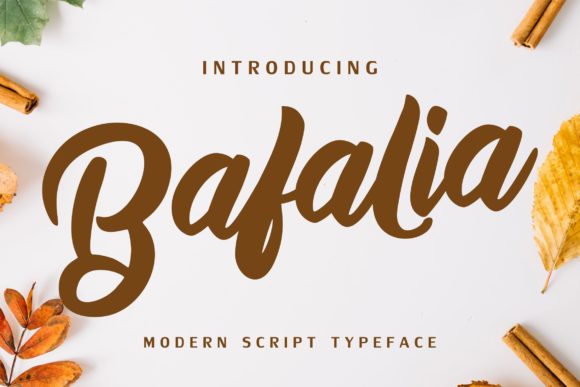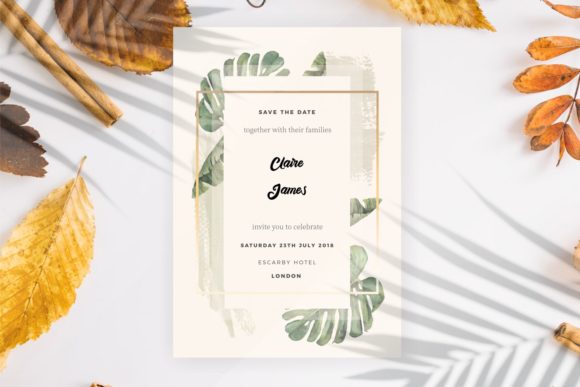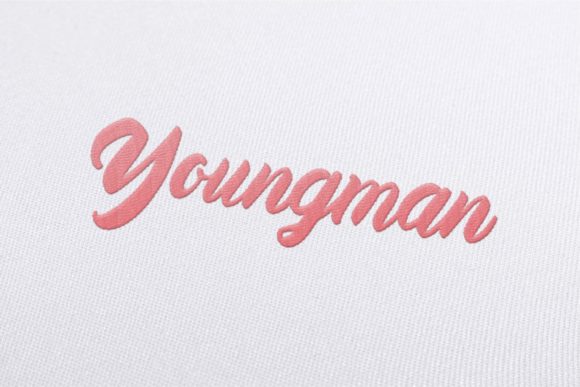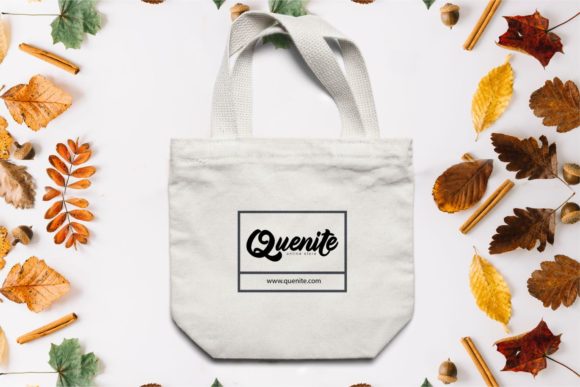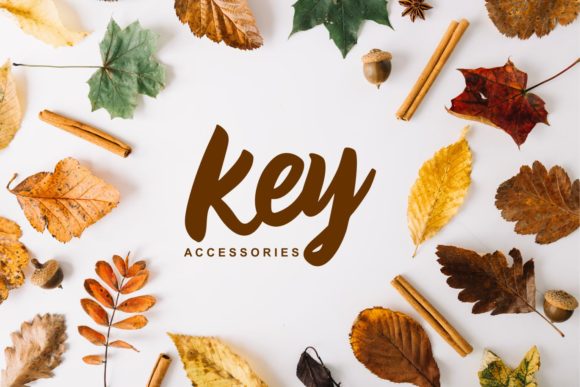
HomeScript FontsBafalia Font Script Fonts Bafalia Font FacebookXPinterestWhatsApp Bafalia Font Poster 2 Bafalia Font Poster 3 Bafalia Font Poster 4 Bafalia Font Poster 5 About Bafalia Font Bafalia is a sweet and simple handwritten font that will add an authentic touch to any design project! DOWNLOAD ON CREATIVE FABRICAThis font is sold and delivered by Creative Fabrica. Font Canyon may earn a commission if you buy through this link. People also explored Ladysmith Font Shafeera Sudestada Doodle Dinosaur Font Honey Moon Midnight Font Mahligai Font Righteous Font Ring Font Best Daddy Ever Font 305 0 TagsBafalia Font Previous articleQickie FontNext articleBadeg Font LEAVE A REPLY Cancel reply Comment: Please enter your comment! Name:* Please enter your name here Email:* You have entered an incorrect email address! Please enter your email address here Website: Save my name, email, and website in this browser for the next time I comment. Personal Use Free Einstaint Personal Use Free Read more about this font Makcex Personal Use Free Read more about this font Chandella Personal Use Free Read more about this font Rozalyn Personal Use Free Read more about this font BLOG Free vs Paid Fonts: Why Investing in Premium Fonts Is Worth It Free vs Paid Fonts: Why Premium Fonts Are Worth It in 2025 The debate of free vs paid fonts continues in the design world. While... Top 10 Handwritten Fonts That Elevate Your Designs Free Fonts Risk: Why Free Fonts Can Be Dangerous for Designers Elegant Wedding Invitation Fonts – Handwritten & Script Fonts